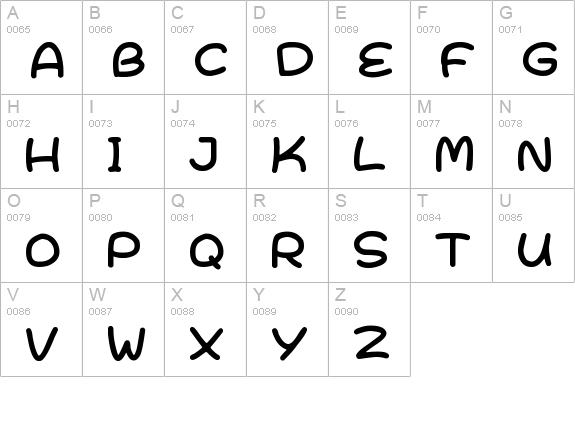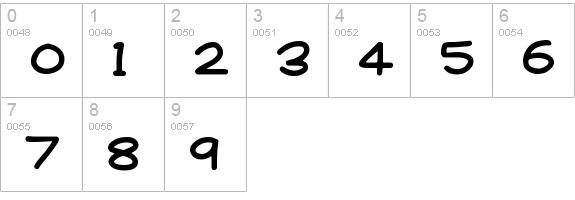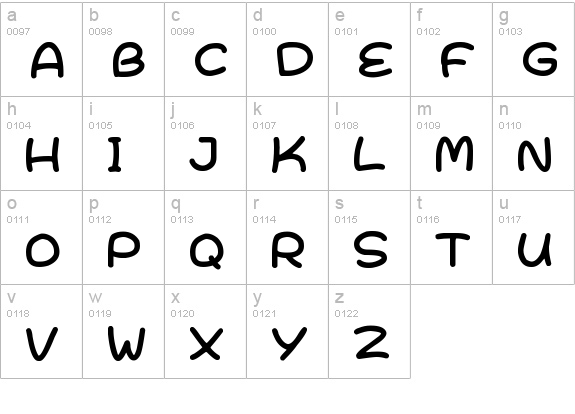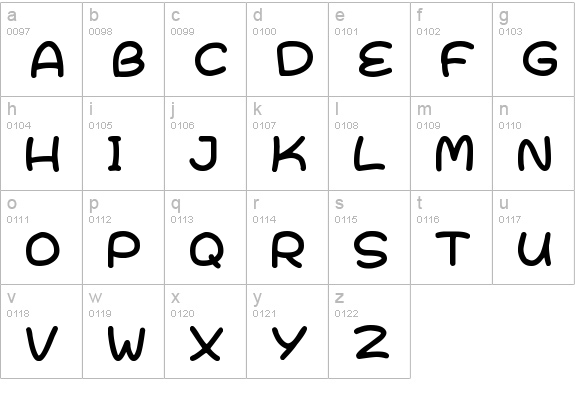
Bright & Early Font Details
Bright & Early is a free for personal use font in the Fancy > Comic category, designed by Darrell Flood. It has been downloaded 22 times and is available for Windows, Mac and Linux.
Bright & Early font is a stunning display typeface that exudes a sense of optimism and energy. With its bold and vibrant letterforms, this font is perfect for making a statement and grabbing attention. The playful curves and unique design of Bright & Early make it an excellent choice for logos, branding, headlines, and more.